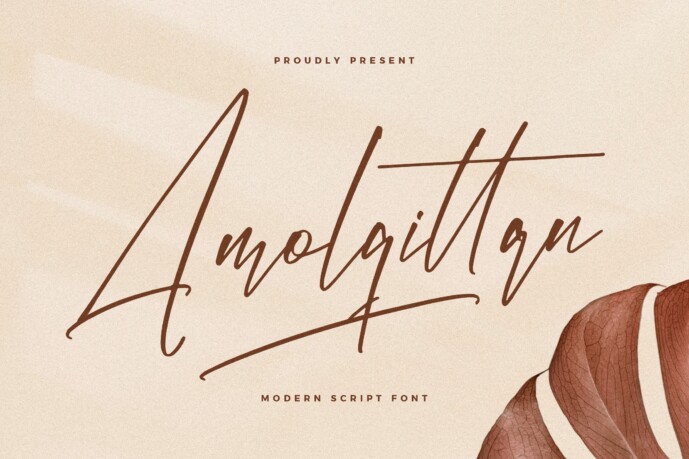
Amolqittan Font
Designer: Letterfabric
Amolqittan – Modern Script Font , from Letterfabric Studio, suitable for any projects such as: logos, branding projects, homeware designs, product packaging, mugs, quotes, posters, shopping bags, t-shirts, book covers, name card, invitation cards, greeting cards, label, photography, watermark, special events, and all your other lovely projects that need a beautiful script taste.